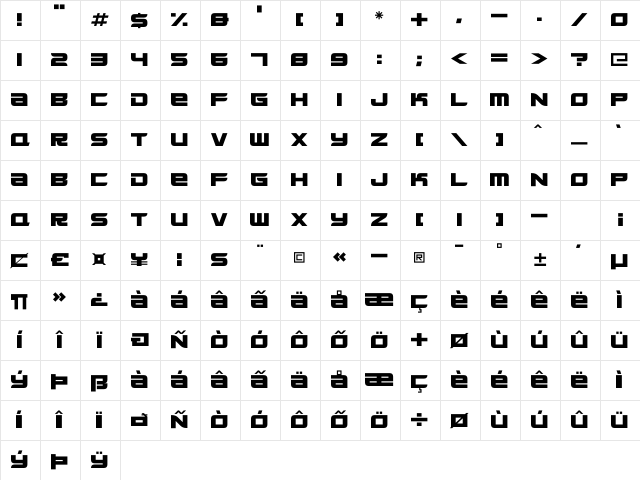
Neon AI has a distinctly futuristic character, with geometric precision and clean angles that feel at home in technology, gaming, and sci-fi contexts.
Pro Tip: Try Neon AI with generous letter-spacing in UI labels and navigation - the geometric forms benefit from room to breathe.